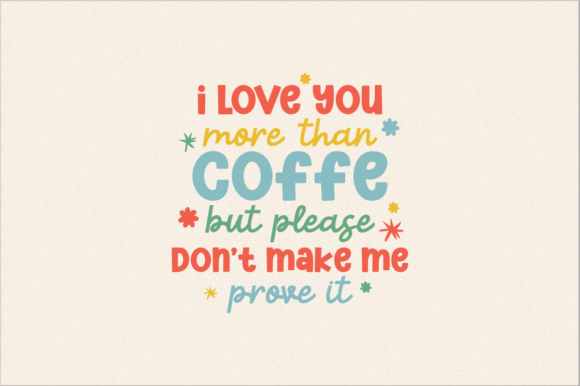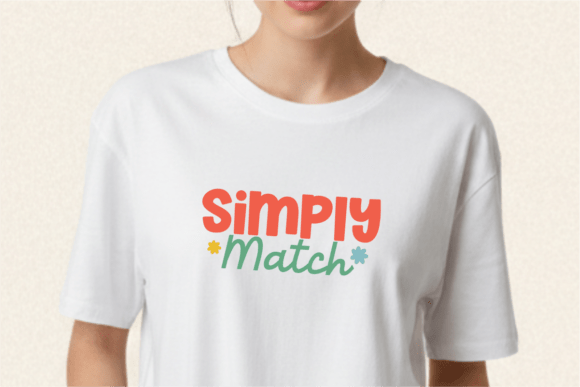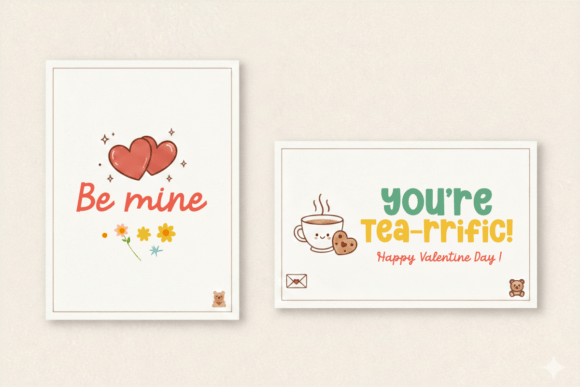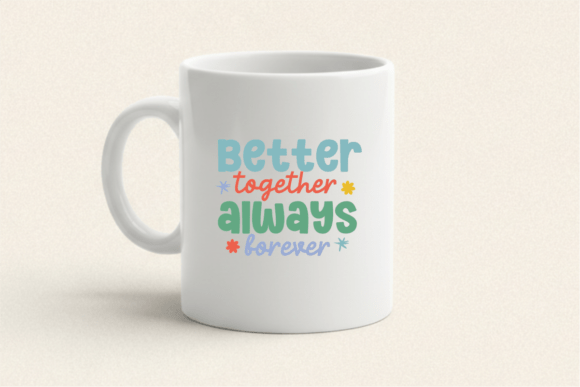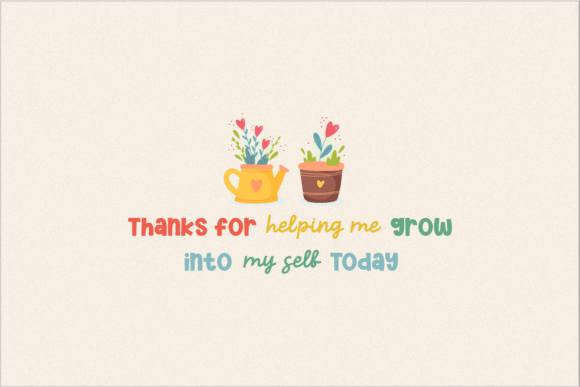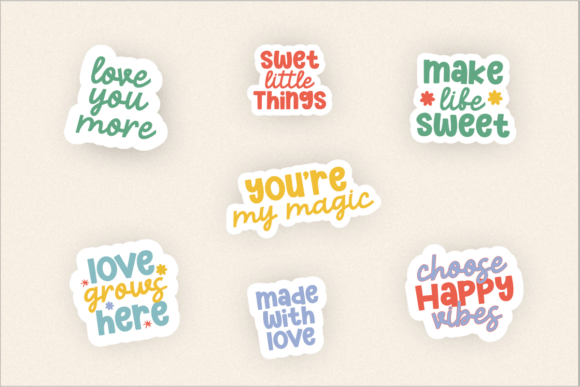
Introduction to Dreams Honey Duo Font
Dreams Honey, a delightful tandem of unique fonts designed to express a comforting and charismatic aesthetic.
This charismatic duo pairs together an assertive display font and a fluid handwriting style, yielding a visual symphony perfect for a wide array of creative agendas Dreams Honey embodies impeccable style for branding, logos, and more โ itโs a perfect match for bakery branding, childrenโs merchandise, natural cosmetics, or the modern cafรฉ.
Key Features of Dreams Honey Duo Font
Why Choose Dreams Honey Duo Font?
Dreams Honey Duo Font offers exceptional quality and versatility, making it a valuable addition to your design toolkit. Whether you’re creating for personal projects or commercial use, Dreams Honey Duo Font delivers professional results.